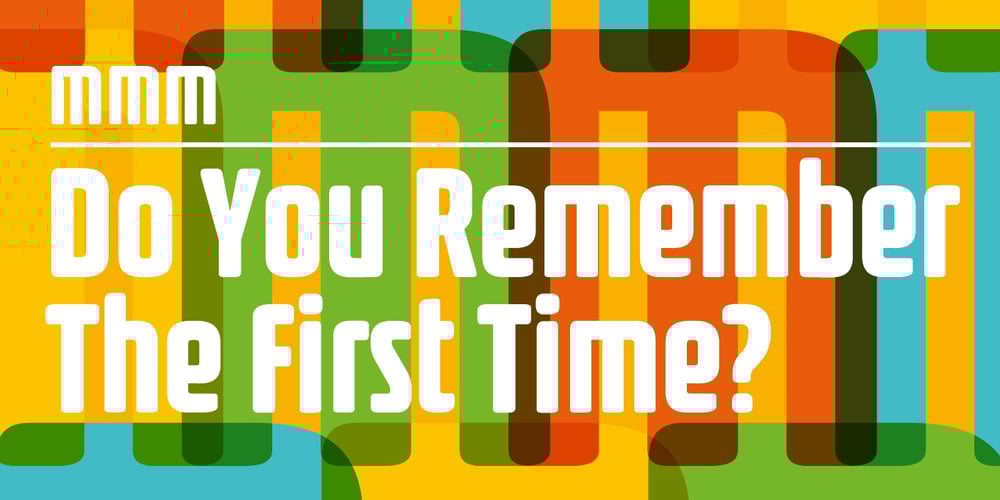
AT Move MMM Font Family was designed by André Toet, Jasper Nijssen, Jasper Terra and published by André Toet Design. AT Move MMM contains 1 styles and family package options. MMM is a sturdy Typeface, the design is based on a old Soap-Powder advertisement. MMM is very useful for headings and/or logotypes. André Toet his 17th Font Caps, Lowercase. With Numbers, Glyphs and the normal Punctuation. Use this Font well, it’s made with the greatest care. Concept/Art Direction: André Toet © 2017 – Design: André Toet / Jasper Terra